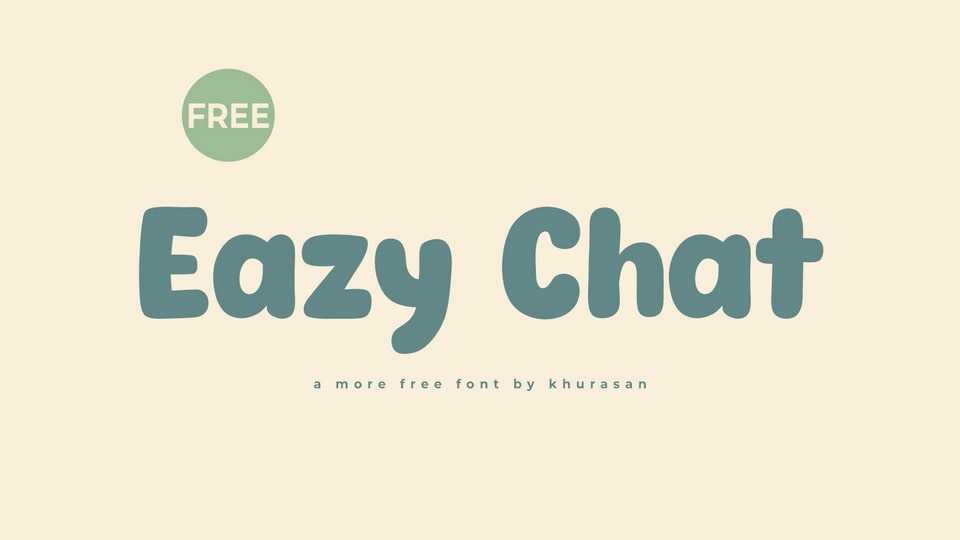
Download Eazy Chat font, a soft and inviting hand-lettered typeface that wraps your text in a cozy embrace. Every letter in Eazy Chat is a gentle curve, exuding warmth and a friendly touch, making it the perfect choice for projects that seek a soft, approachable, and comforting aesthetic.